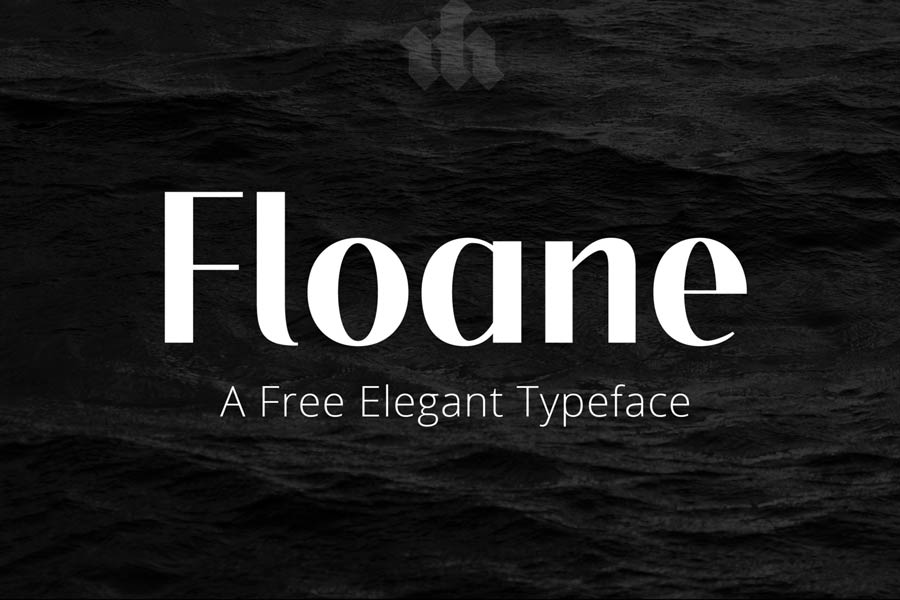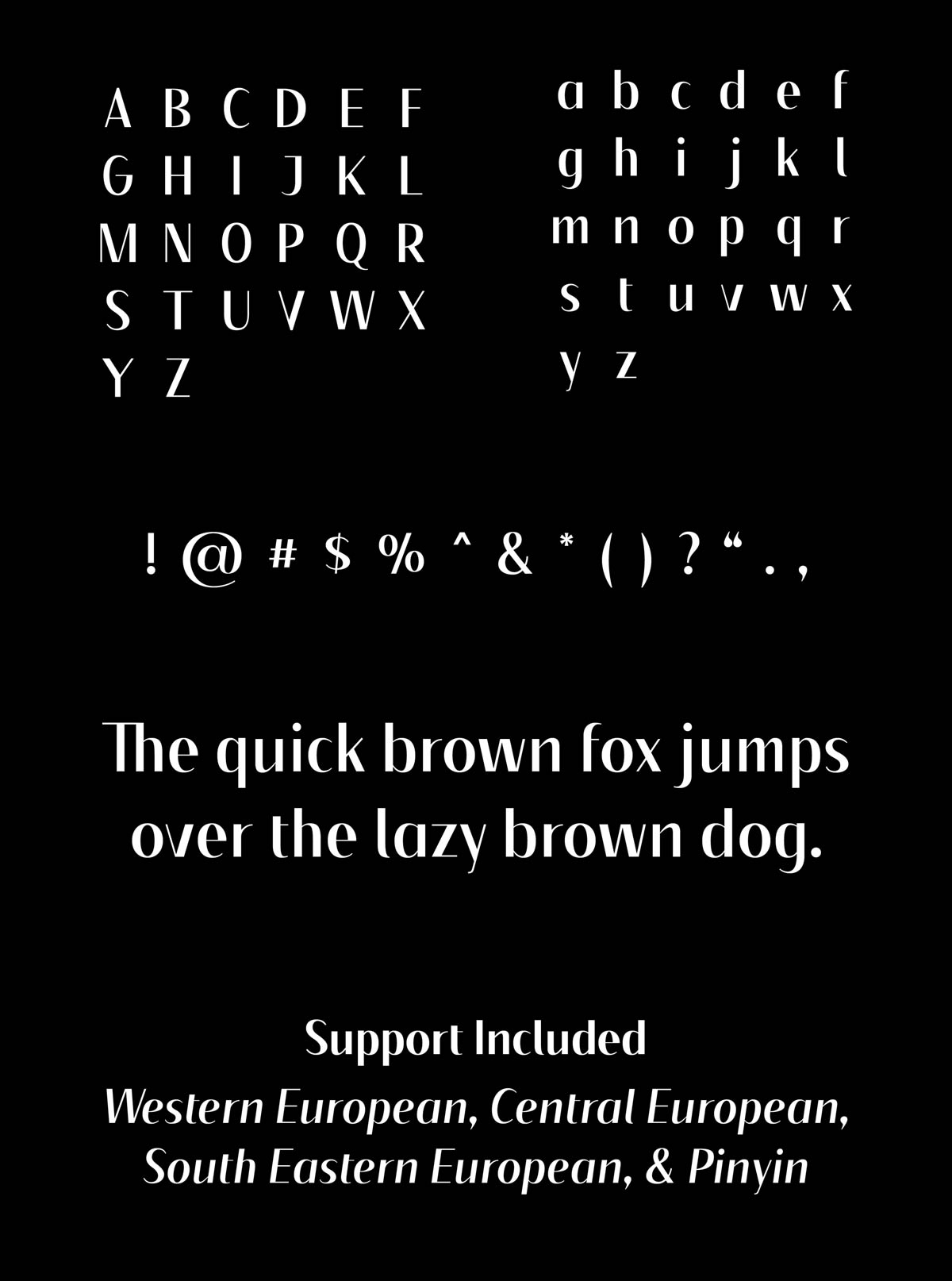
Floane is an elegant sans serif font that is available for free. The characters are slightly condensed and constructed with clean strokes. The contrast between and thick strokes further increases the elegant-ness, and the uniqueness of the font design.
- Designer: Daler Mukhiddinov